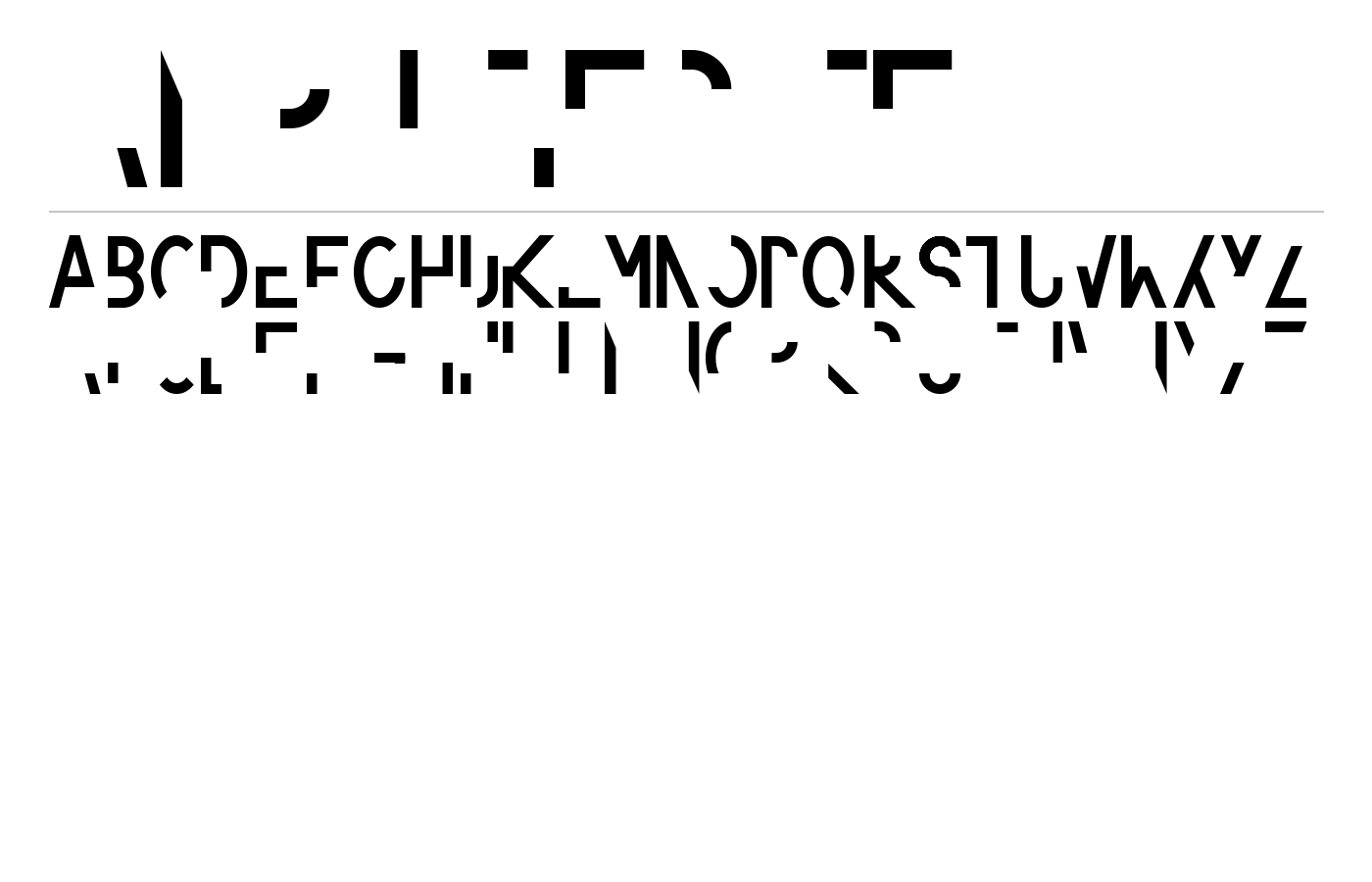
Amputierte is a highly stylized, modern sans serif font characterized by its bold weight and unique fragmented letterforms that create an edgy, almost abstract aesthetic. The sharp, geometric cuts and unconventional shapes lend a contemporary and artistic vibe, making it ideal for bold, creative branding, avant-garde posters, and striking headlines where a standout, experimental look is desired.
amputierte Font
About amputierte Font
| Font family | amputierte Font |
| Designer | Simon Thomaschke |